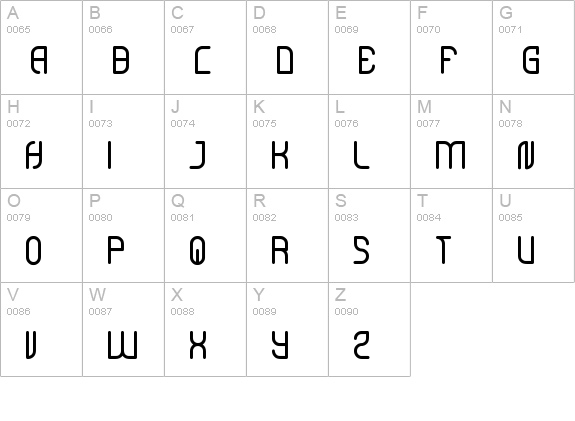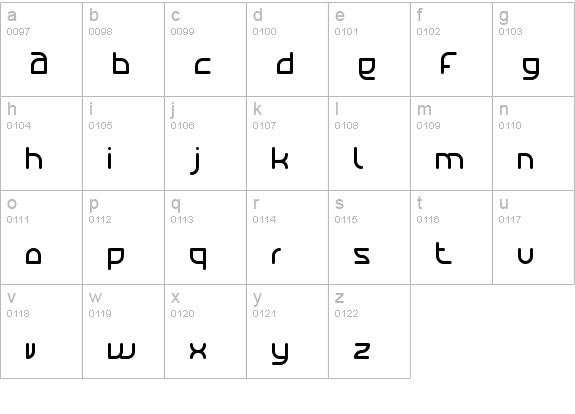
Katarzyna Font Details
Katarzyna font is a stunning display font that exudes elegance and sophistication. Its sleek lines and graceful curves make it perfect for adding a touch of refinement to any design project. The font's versatility allows it to be used for a variety of purposes, from logos and branding to headlines and invitations. One of the best things about Katarzyna font is that it is free. Yes, you read that right - this beautiful font is freely available to download at FontsMarket.com. This means that you can enhance your designs with this gorgeous typeface without having to spend a penny. With Katarzyna font, you can effortlessly create eye-catching designs that are sure to leave a lasting impression. Its clean and modern aesthetic makes it suitable for a wide range of styles, whether you're going for a minimalist look or a more elaborate design. Whether you're a graphic designer, a web developer, or simply someone who appreciates the beauty of typography, Katarzyna font is a must-have in your font collection. Its timeless appeal and free availability make it a truly valuable asset. So why wait? Head over to FontsMarket.com and download Katarzyna font today to start adding a touch of elegance to your designs.